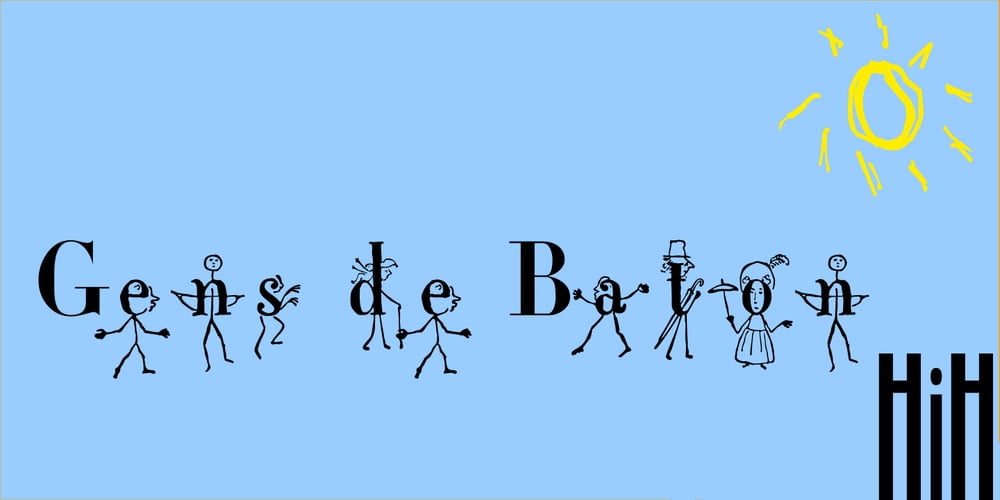
Gens De Baton
Gens De Baton font
Gens De Baton Font Family was designed by published by HiH. Gens De Baton contains 1 styles and family package options. Gens De Baton is based on a charming lower case alphabet that appeared in the Almanach des Enfants pour 1886 (Paris 1886) under the heading “Amusing Grammar Lessons.” Gens De Baton means simply “Stick People.” The unknown designer turned the bare letter forms into drawings of people for the enjoyment of the children for whom the almanac was intended. The letter forms themselves were based on the French Romain du Roi (King’s Roman), except for the ‘g’ and the ‘j’ — which were based on Baskerville. The letters ‘w’ and ‘y’ were not included, as they are seldom seen in French. We have left the letters somewhat rough, as they appeared in the Almanach des Enfants , resisting the temptation to clean up all the lines and render them with digital perfection. We have used our HiH Firmin Didot to supply an upper case and auxiliary characters, as Didot was originally a modified version of Romain du Roi. It is interesting to observe the contrast between the polished look of the Didot upper case and the rough, hand-drawn look of the lower case. Purchasers of this font have our permission to use it for the amusement of adults as well as children. We recommend setting Gens De Baton at 24 points or larger.